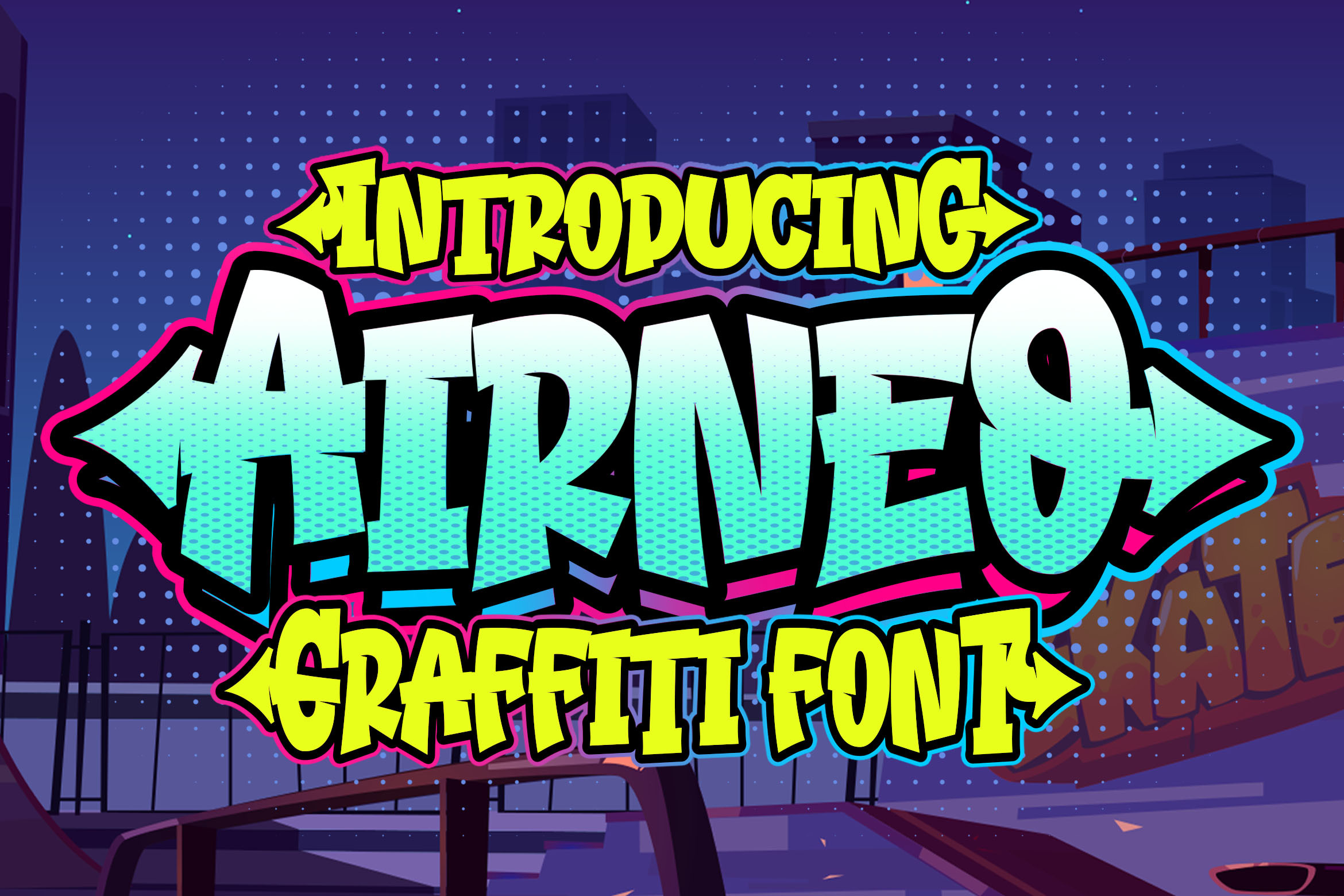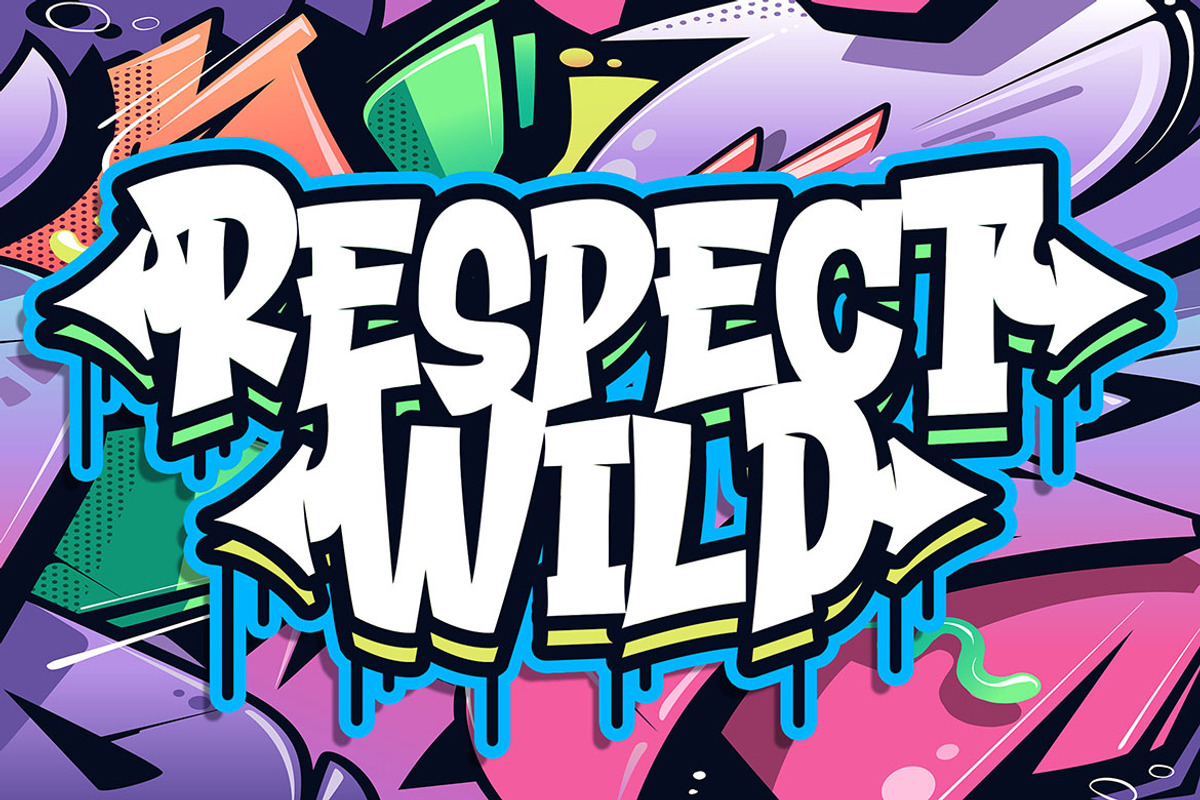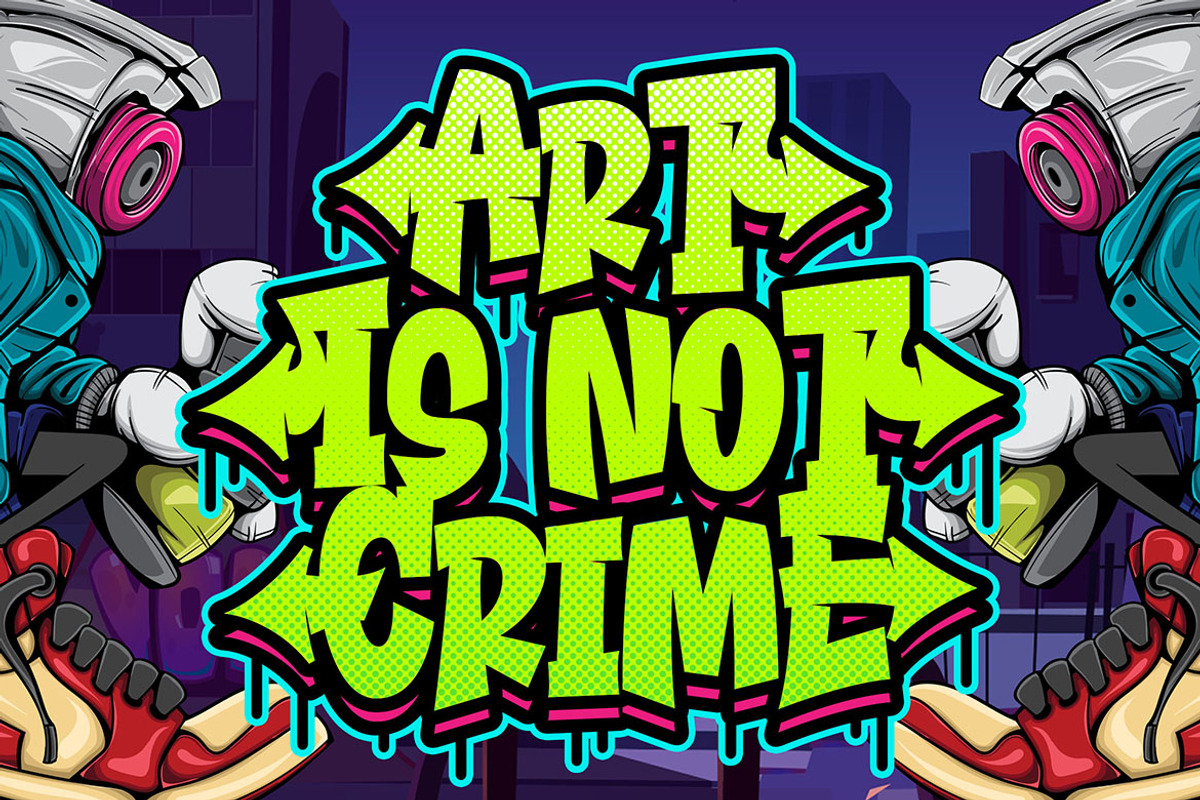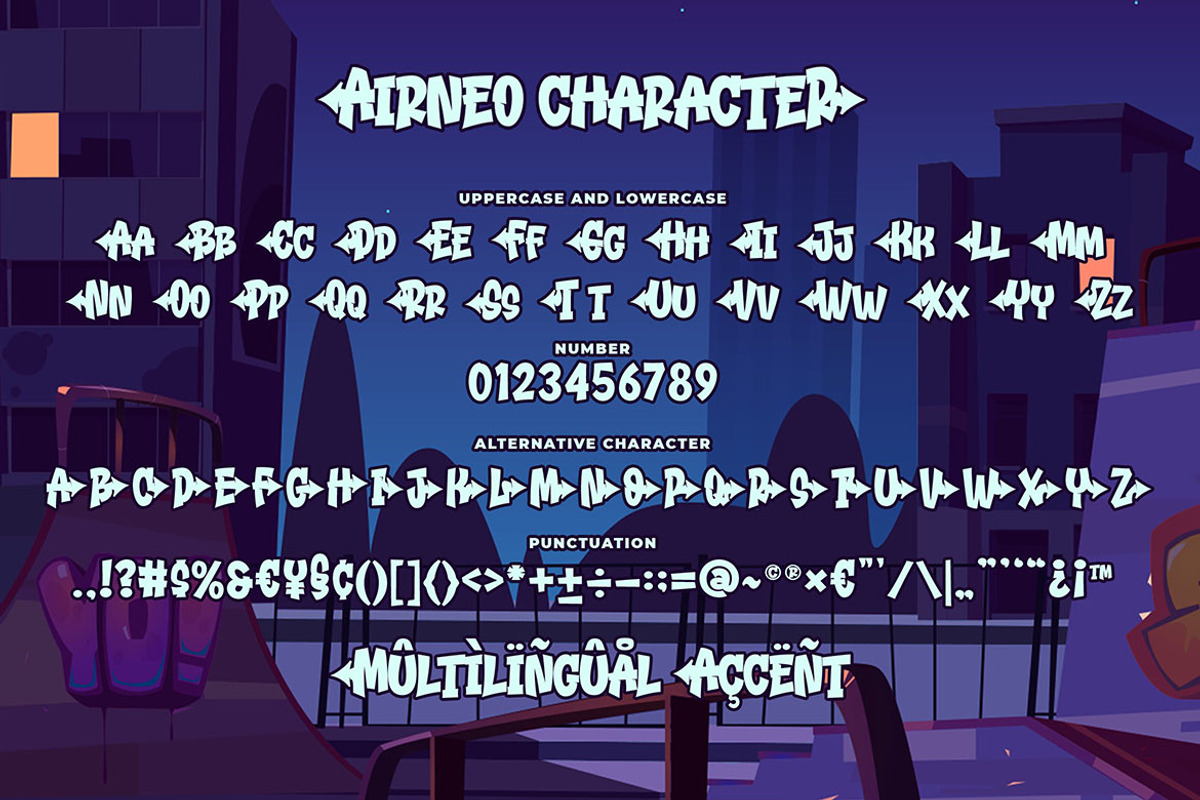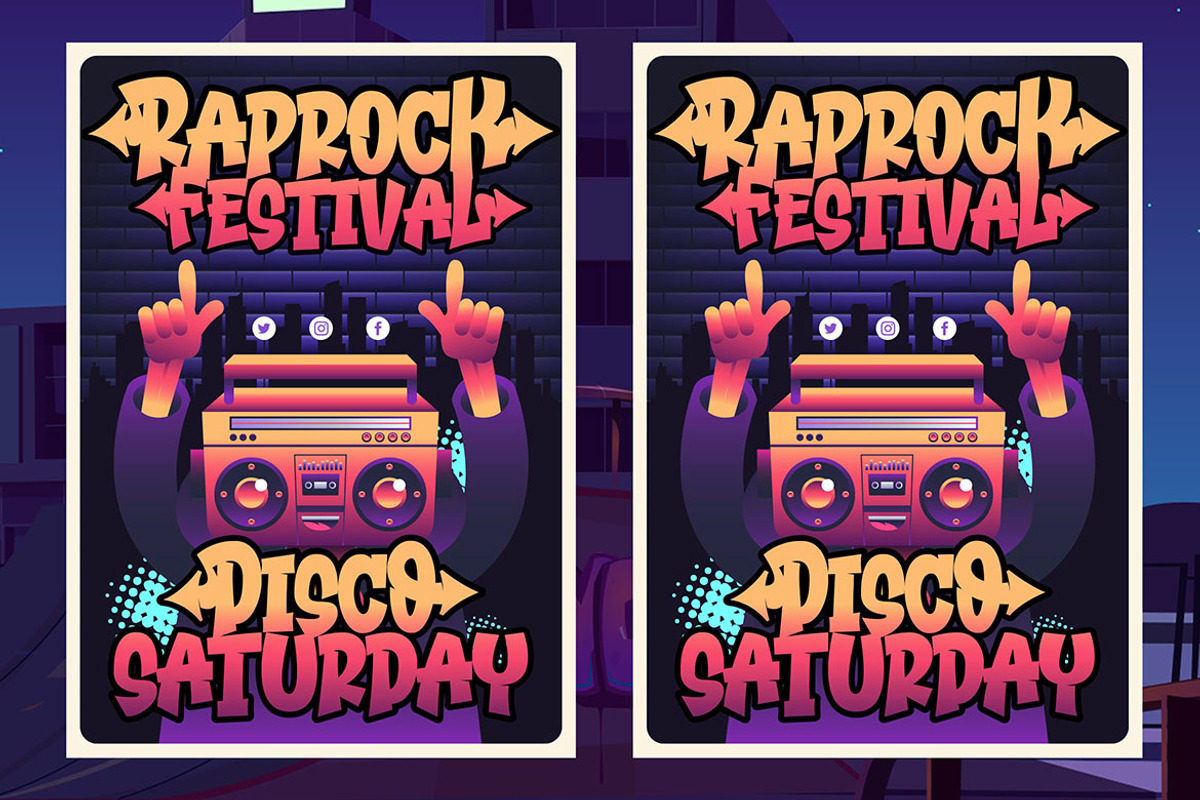
Airneo - Graffiti Font
Introducing of our new product the name is Airneo Graffiti Font, Airneo inspired by graffiti style with a fun theme very good for graffity poster, Hip Hop music, kids poster, flyer, childrenbook, cartoon, comic etc